Newspaper Club teams up with abcD8 on NC HEADLINE, a tabloid-inspired typeface it owns outright
Drawing on the heyday of the tabloid press and the inspiring archives at St Bride, the all-caps variable font marks the launch of D8's new type studio – and a break from spiralling licence fees – ahead of its debut at Birmingham Design Festival.
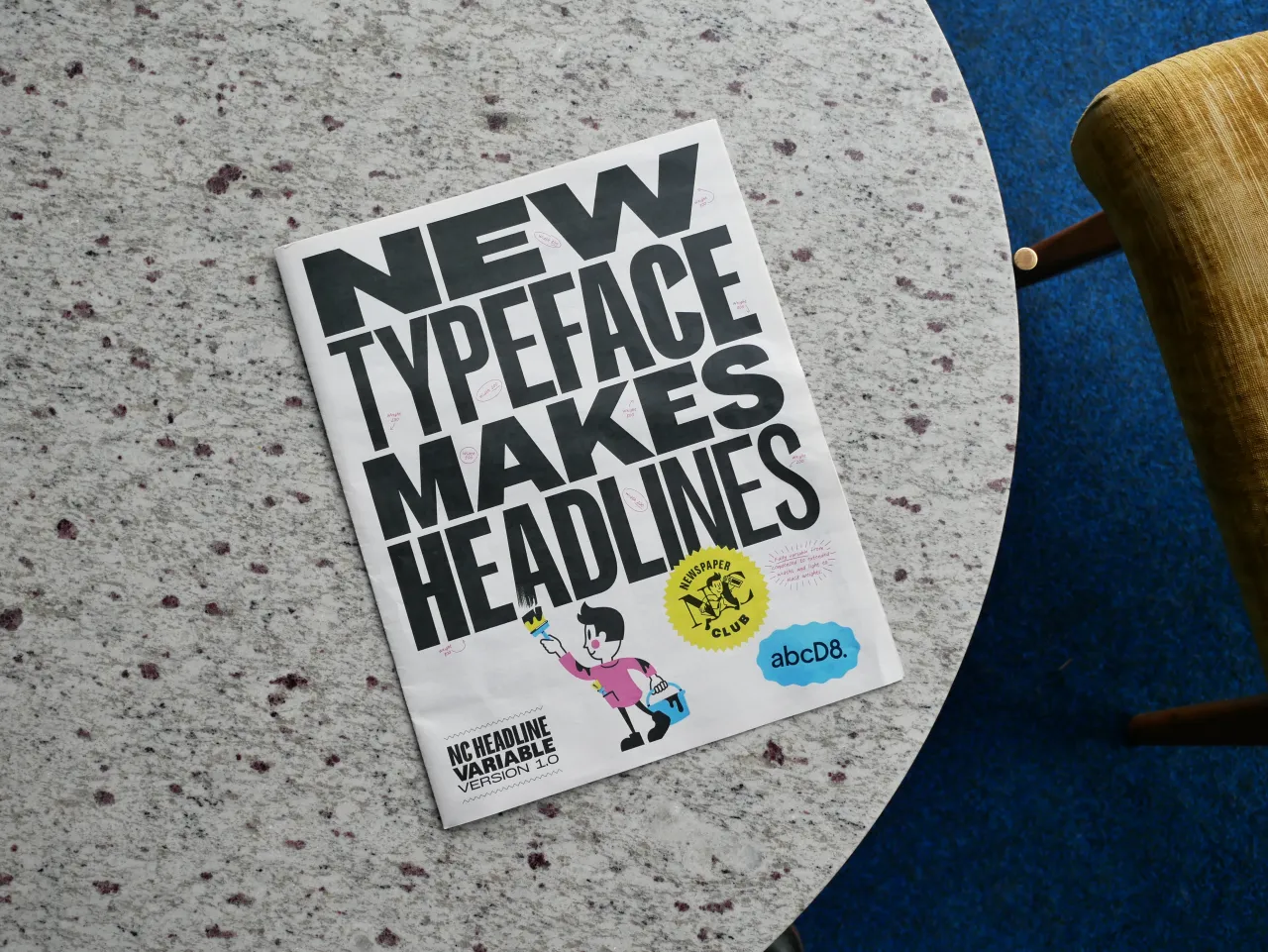
That's why Anne Ward, CEO of Newspaper Club, has teamed up with D8 to create a bespoke typeface, NC HEADLINE, that is uniquely theirs and no one else can use. It's the first of many typefaces for the creative agency, which this week has launched abcD8 – its new foundry that designs typefaces clients own outright, with no licence fees attached, ever.
Newspaper Club is its first customer, and what they've created will be revealed this week at Birmingham Design Festival, where a type specimen printed on the company's own tabloids – plus a short film documenting the process – will put the new font through its paces.
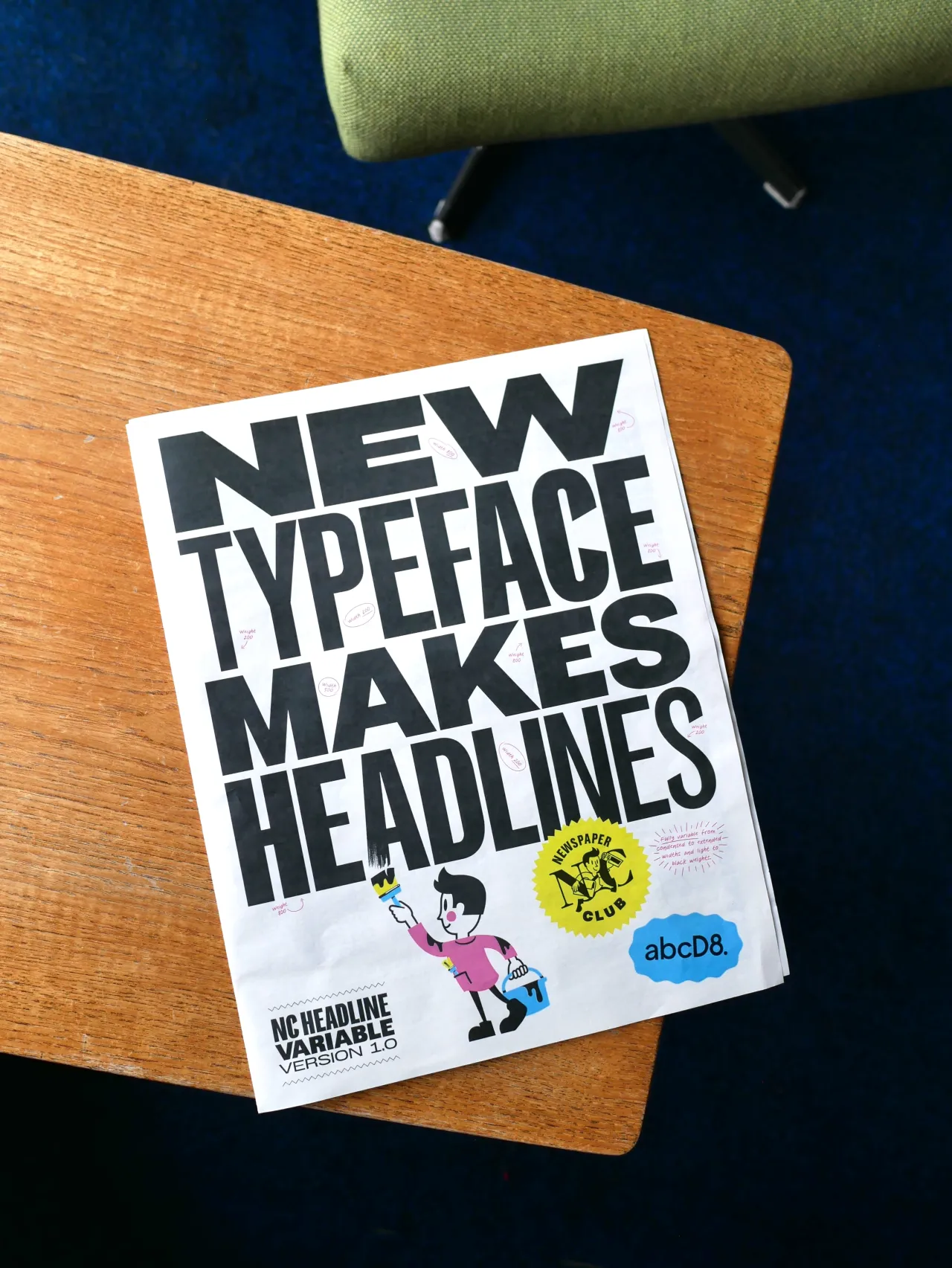
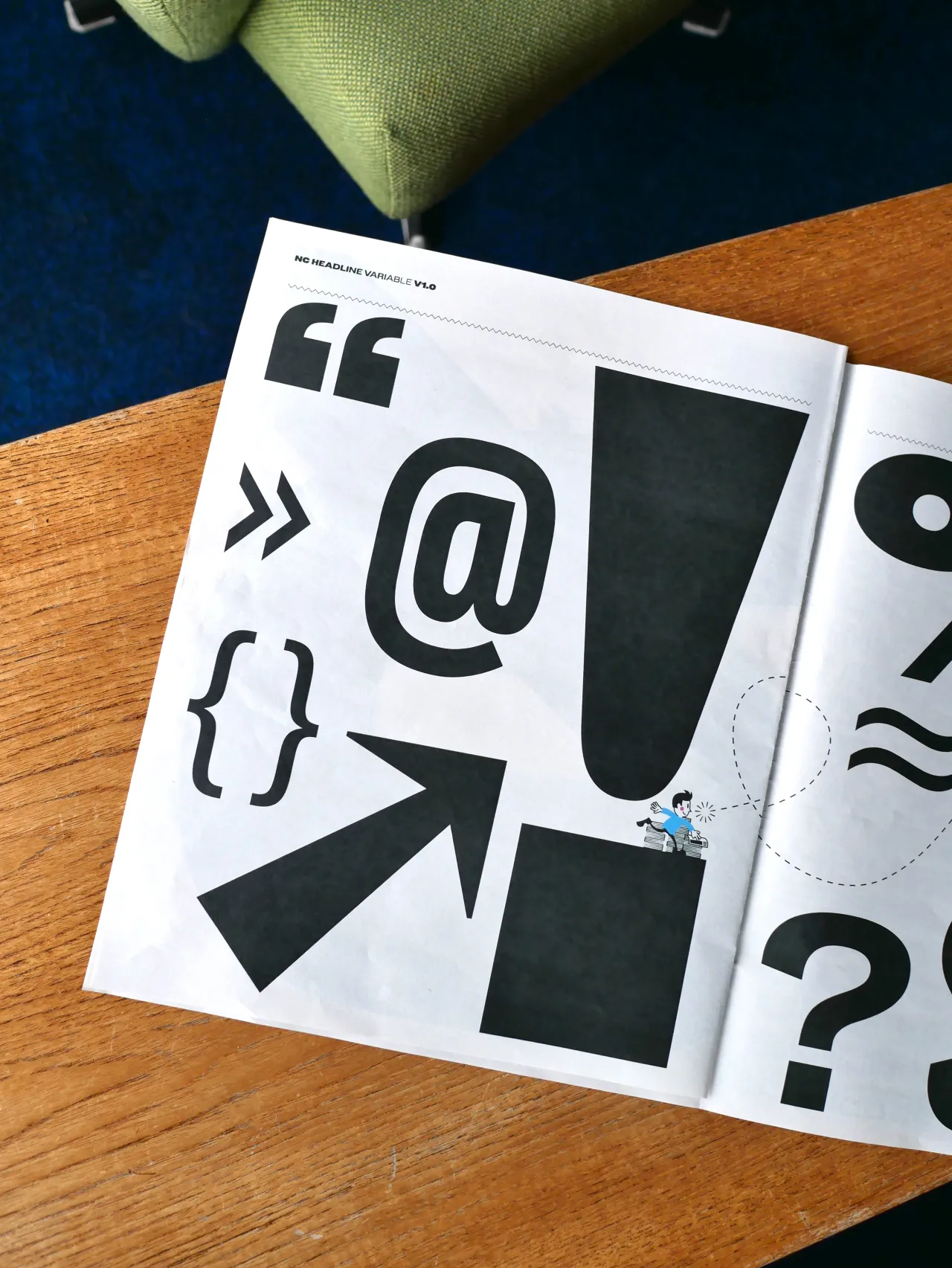
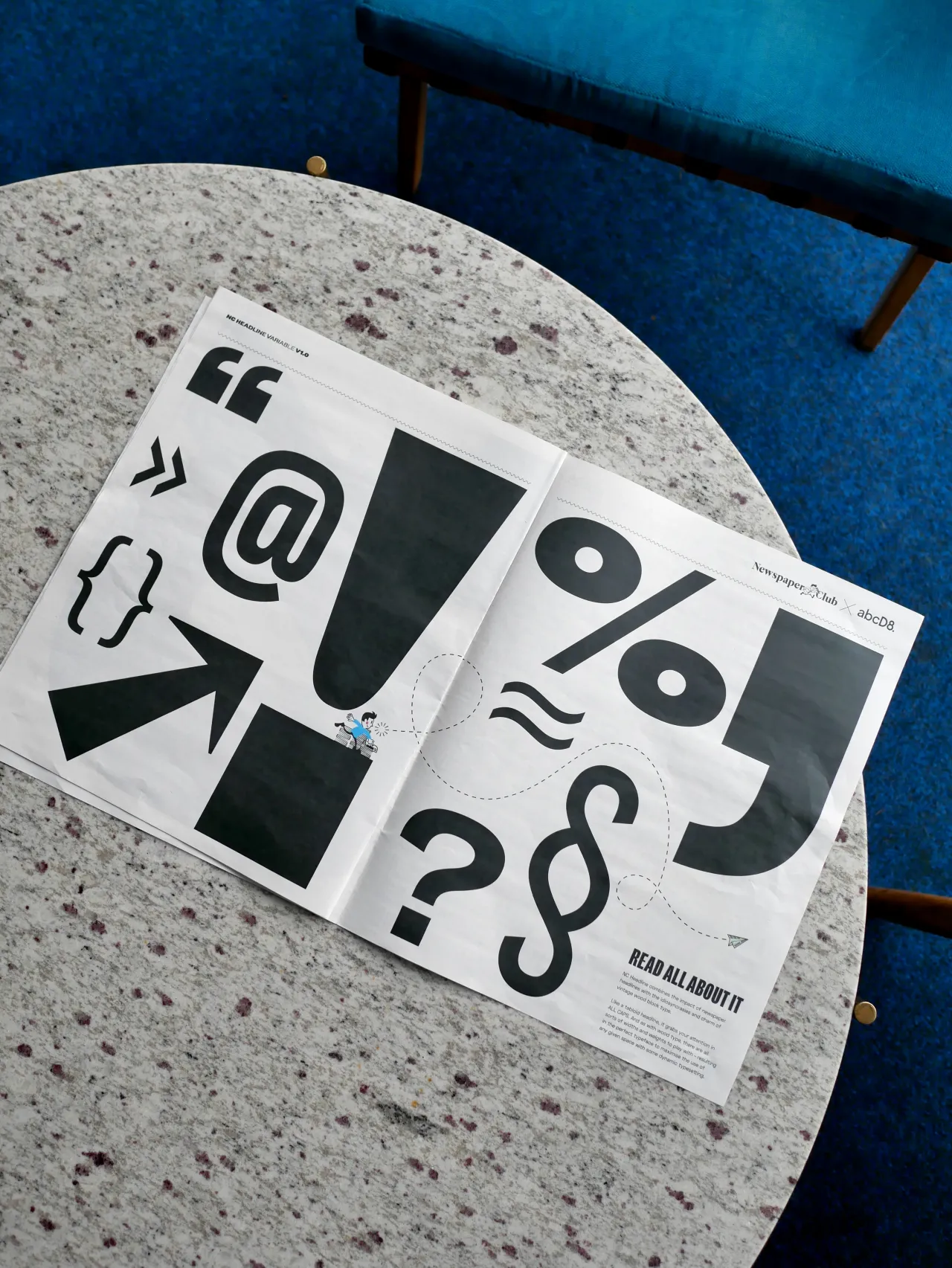
To inspire its design, Anne and the D8 team went through St Bride Foundation's archives – the home of the printing press in London, and a brilliant place to visit if you haven't already. "Initially, we looked at the sophistication of broadsheet mastheads, but it felt like it really lacked the energy that Newspaper Club has," says Anne. They turned instead to the heyday of tabloids, when typefaces like Interstate (Daily Mirror) and Franklin Gothic (The Sun) ruled the front pages. "Rather than simply copying the tabloid look, we wanted to refine it a little more and so combined it with more vintage styling, helping to make it more our own."
The archives turned up surprises, too – show posters, for instance, and how they handled certain character shapes. "We liked how they used variable-width characters to shout about something while using all available space on the poster. That wasn't something we'd expected to study initially, but it ended up having a real impact on the design," says Anne. "Those references helped us round out and refine the typeface, giving it more personality and helping us resolve some of the character forms in a way that felt distinctive while still being rooted in print culture."
"From our perspective, we wanted to evoke the confidence and character of classic newspaper headlines, but we also needed something that could work seamlessly across all of our channels," adds Anne.
"One of the biggest departures from our historical references was the emphasis on flexibility. Traditional newspaper headline typography tends to be quite static, designed for a specific context on a printed page. We needed something much more dynamic: a typeface that could work across social media, video, print and large-scale applications, while still feeling unmistakably rooted in the world of newspapers."
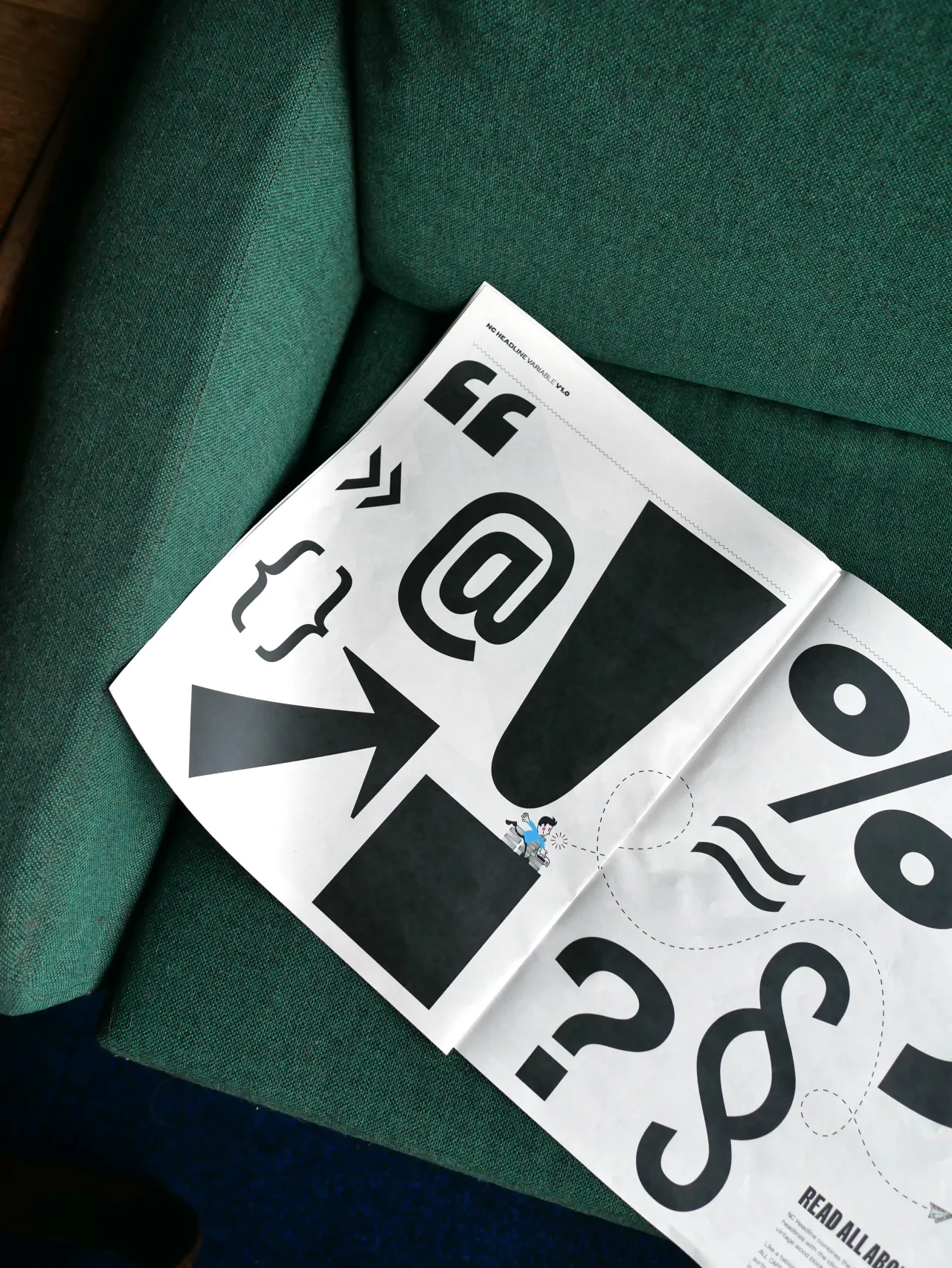
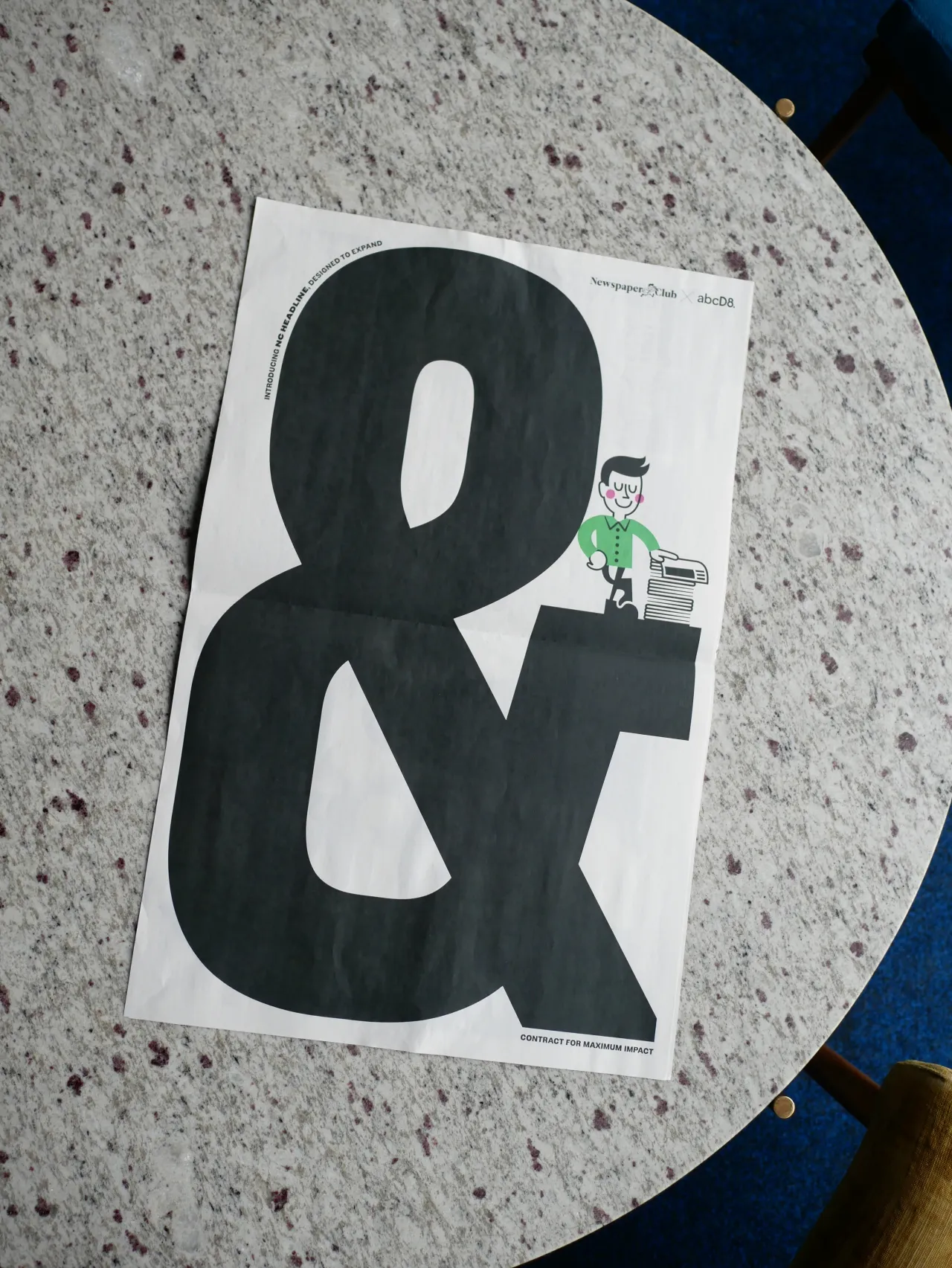
That thinking led Anne and D8 towards a variable design with no fixed widths – one that can expand, condense and adapt to different formats. Despite this, they deliberately kept one restriction: they didn't build a lowercase alphabet. "We wanted the typeface to remain all caps, reinforcing its role as a headline typeface," explains Anne. "We stack our headlines a lot, so having the ability to adjust the width gives us much more flexibility. Depending on the space available, we can make the type incredibly condensed or much wider and more expansive, often even within the same headline."
Steven Bonner, creative director at D8 and abcD8, says: "We treat the way we work with type in exactly the same way that D8 does with other design projects. This means using a transparent pricing structure where the client pays for our time. We don't charge for licensing design work anywhere else, so why do it with type?
"We've found that the pricing structure for type has left a lot of our clients more than a little confused and struggling to navigate a complex world of licences across a host of touchpoints, so we want to make it simple. If we provide good service, we hope clients come back to us the next time they have the same need, rather than charging them over and over for the same work."
So whose idea was the typeface for Newspaper Club? Did Anne go looking for one, or did abcD8 propose it as a launch project? It was Anne who approached D8 after working with them for over a decade. "During that time, we'd seen font licence fees rising and rising," she says. "Our headline font had always been such a huge part of our identity; it just made more sense that we should own it outright."
Along with the launch of a newspaper specimen at Birmingham Design Festival this week, Newspaper Club has released a film about the making of the new typeface. "We didn't just want to say 'here's a new typeface' and walk away," says Anne. "We know how much our community loves to see the work that's gone into something. People always ask to see behind the scenes at the printing press, and we thought this was a fun way to bring that energy to this project."